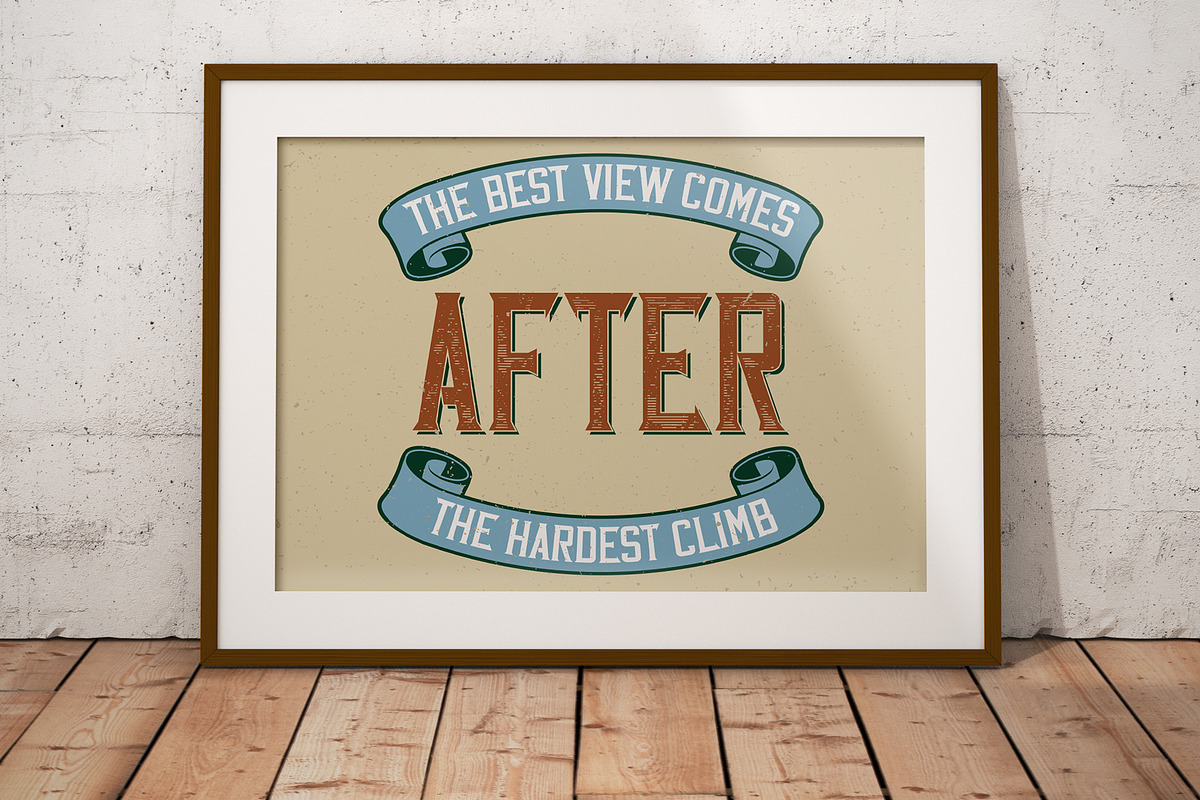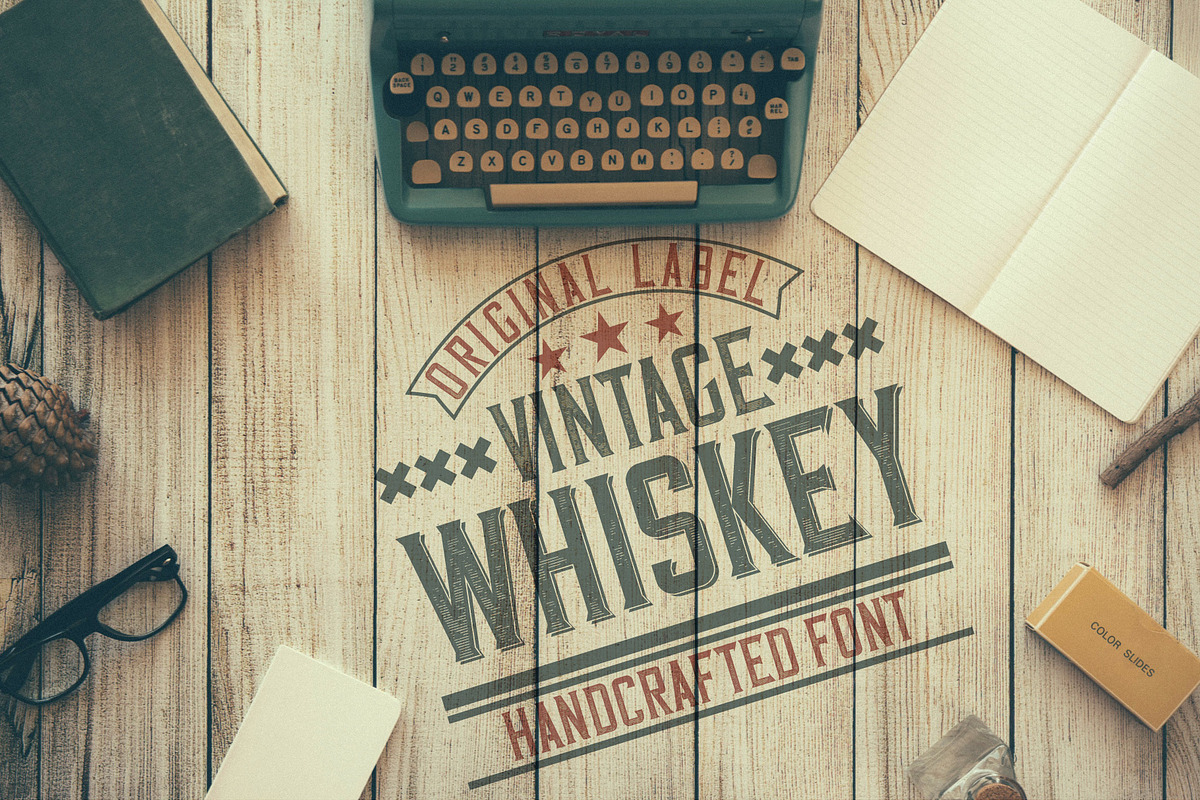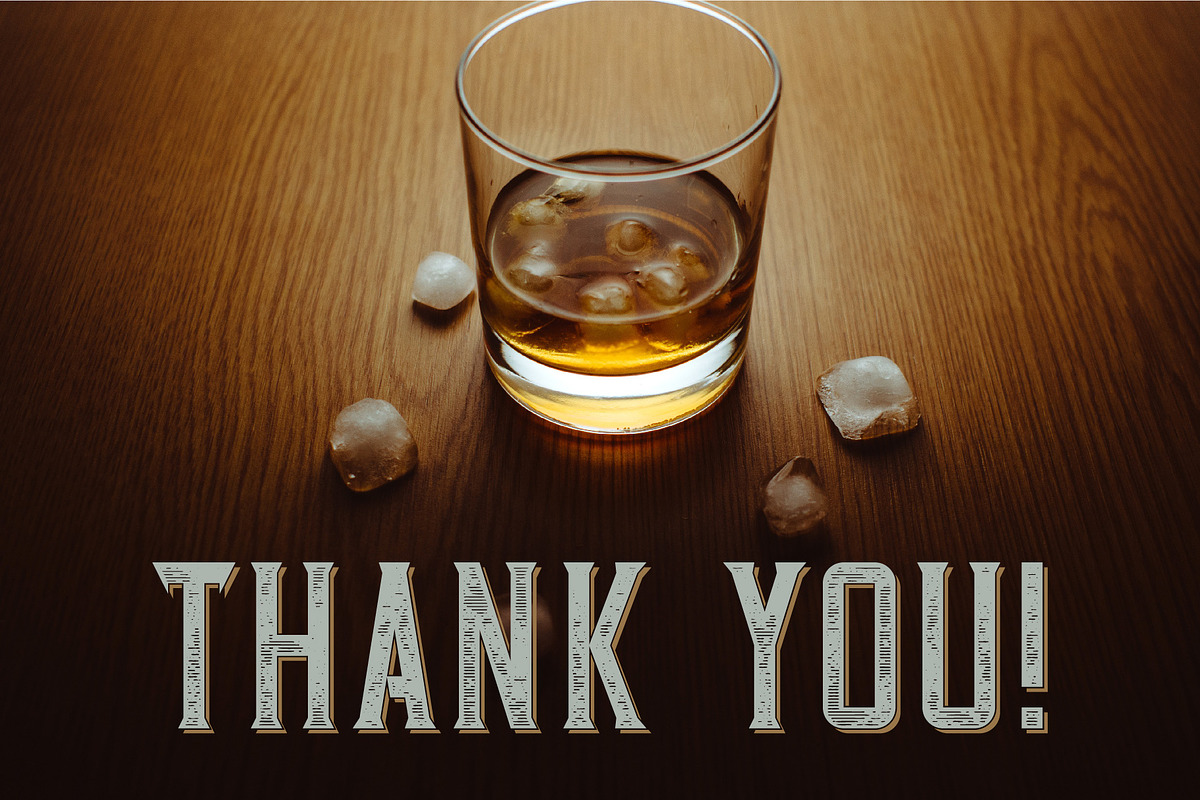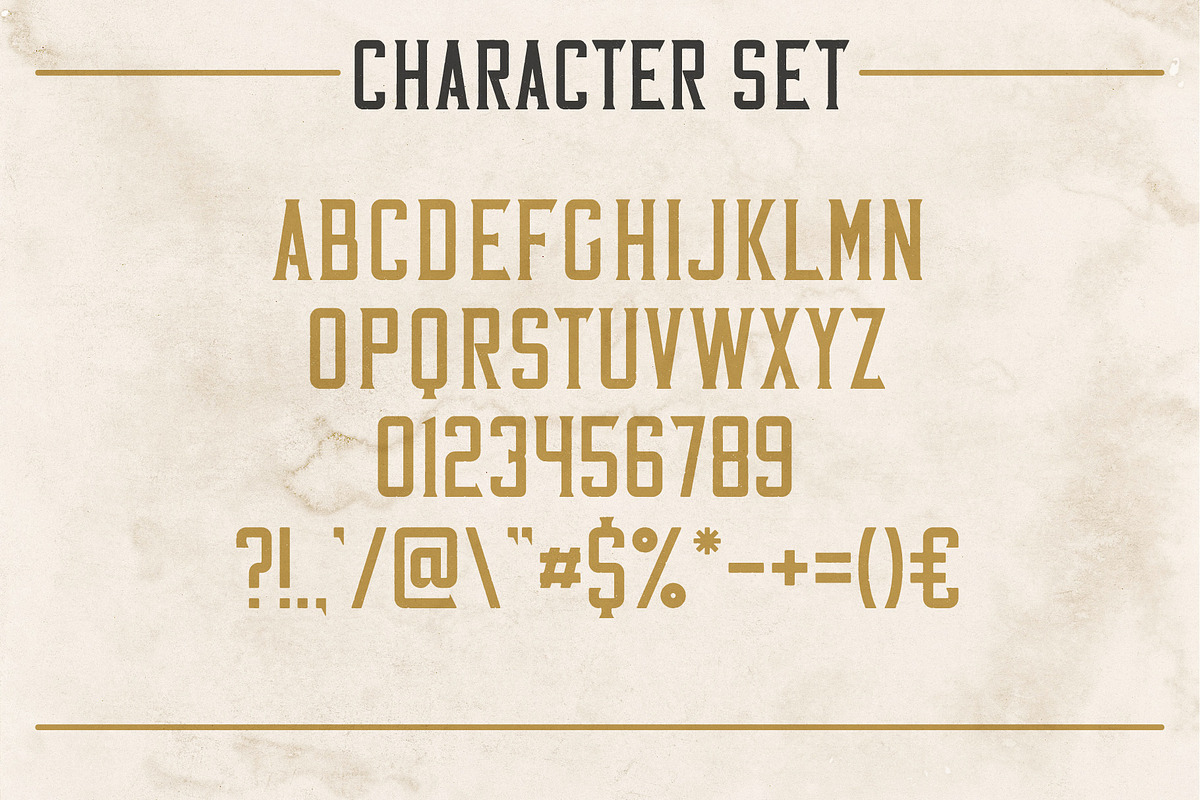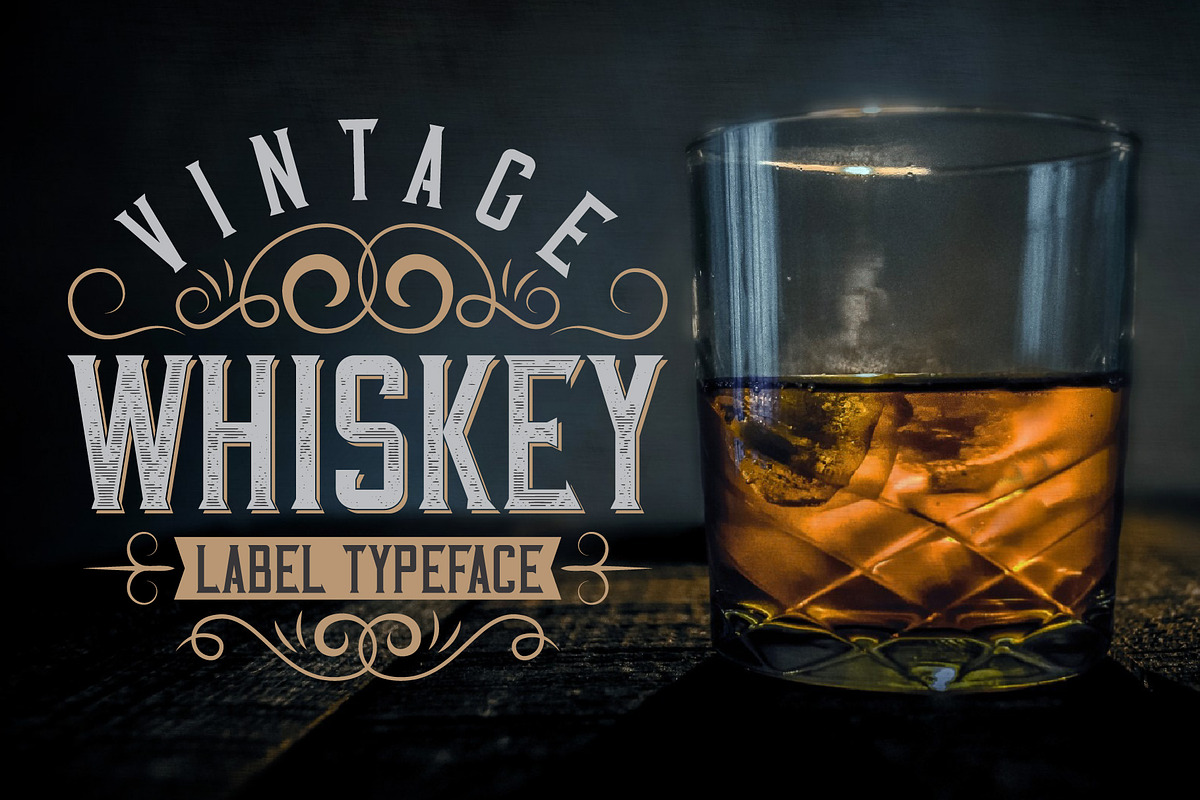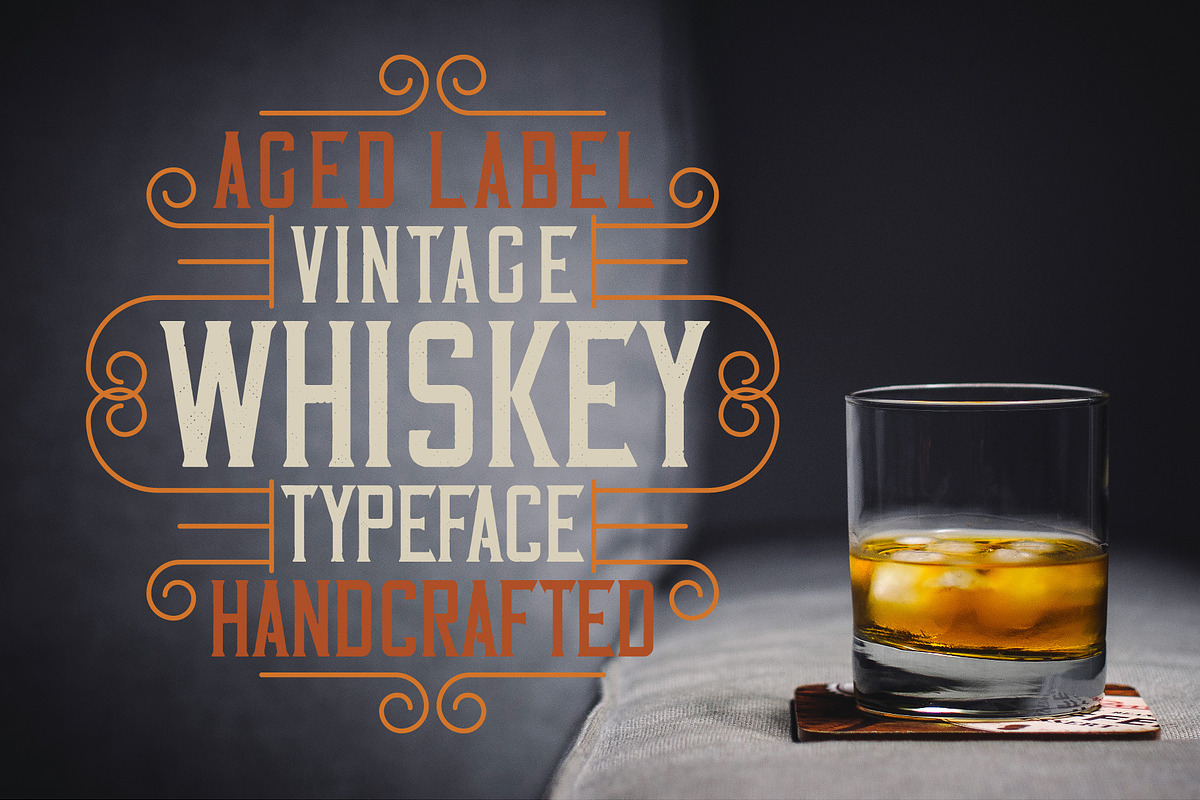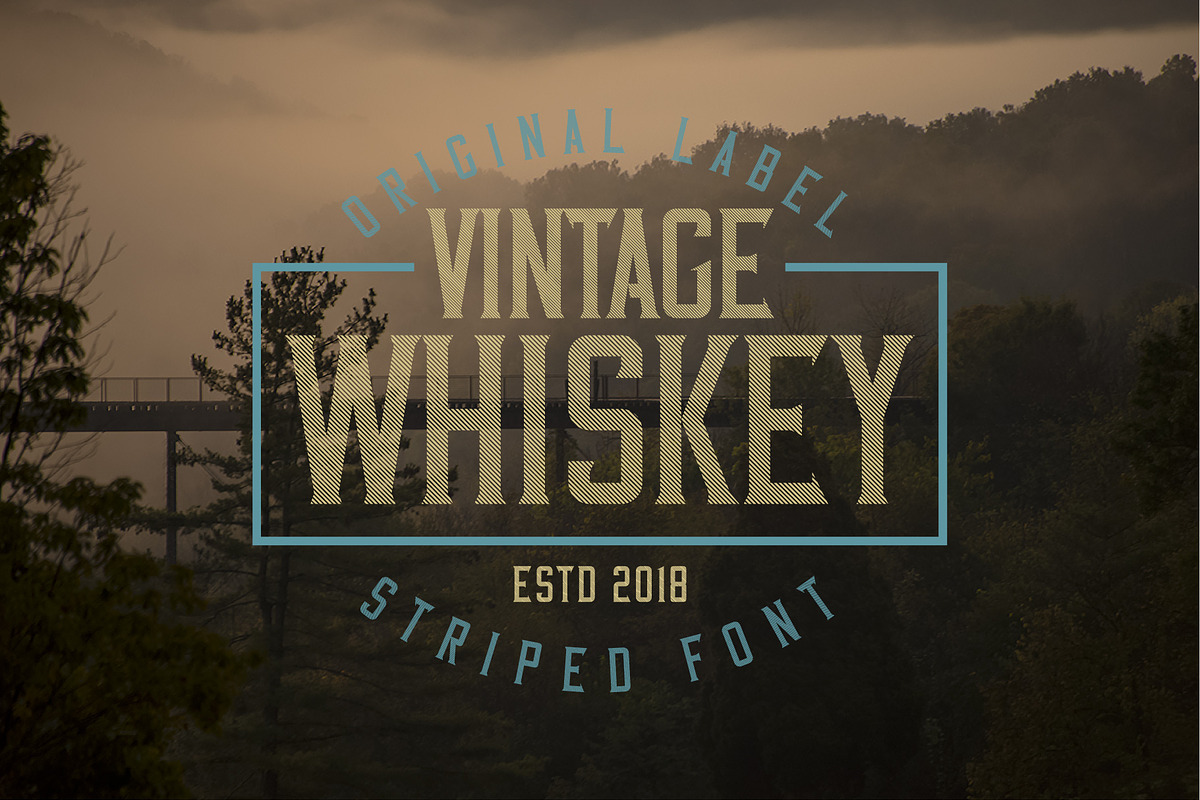
Vintage Whiskey Typeface
Introducing a vintage look layered label typeface named "Vintage Whiskey". This typeface includes six styles (including effect styles), for sample look at 4th preview. This font will good viewed on any retro design like poster, t-shirt, label, logo etc.